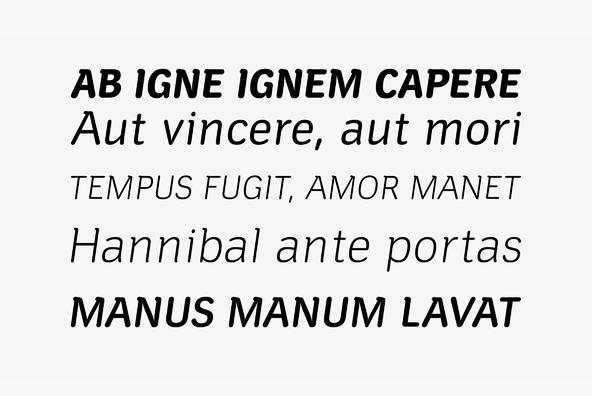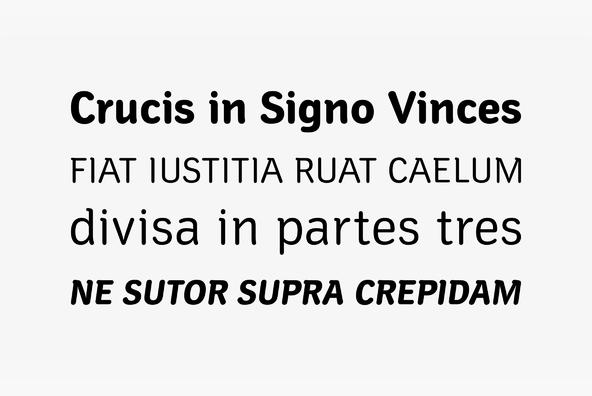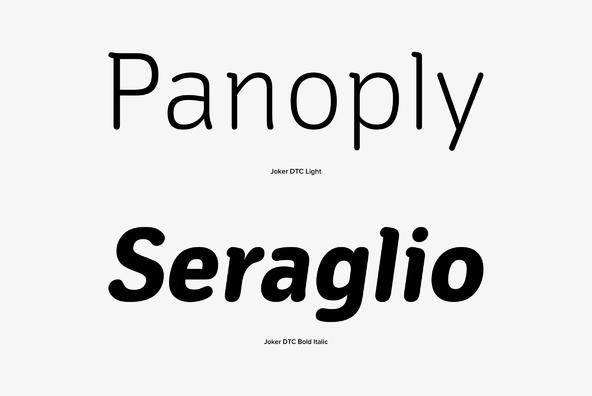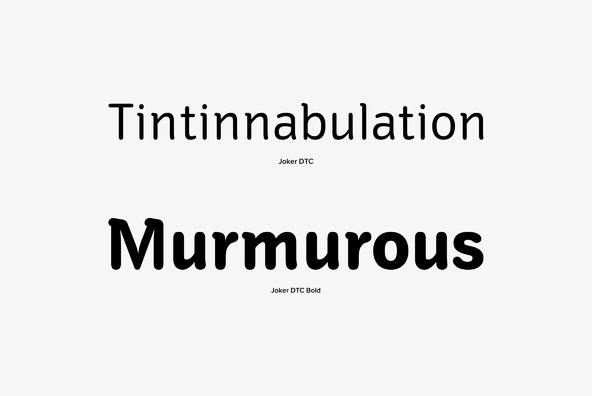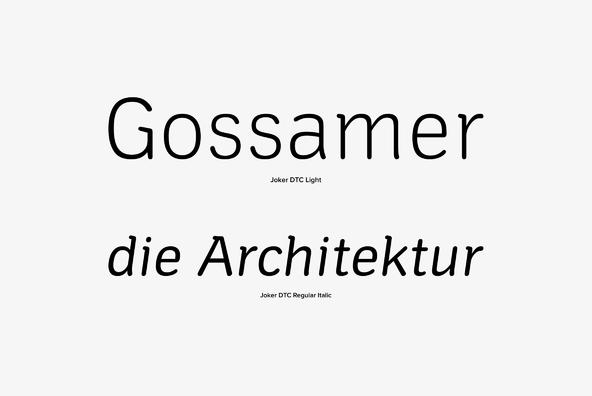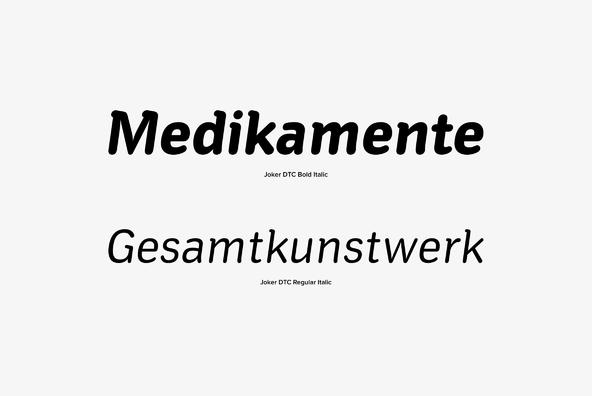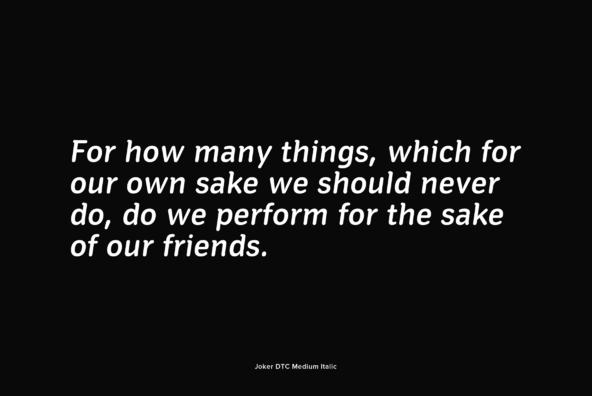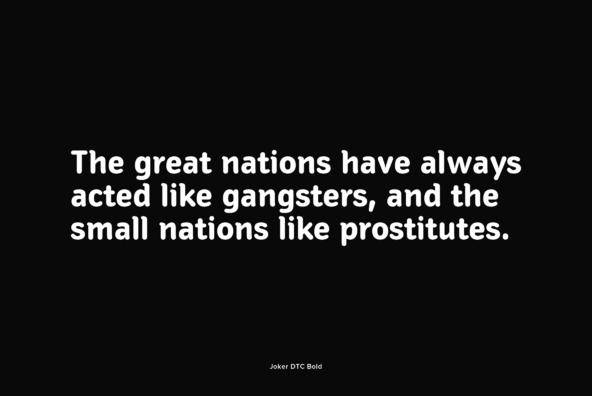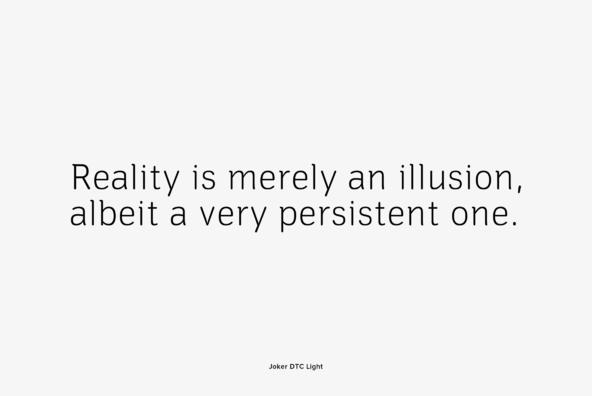
Joker DTC
A vintage and classic serif designed by Volker Schnebel, Joker DTC brings elegance and class to any project. Works great in both content and headline usage.